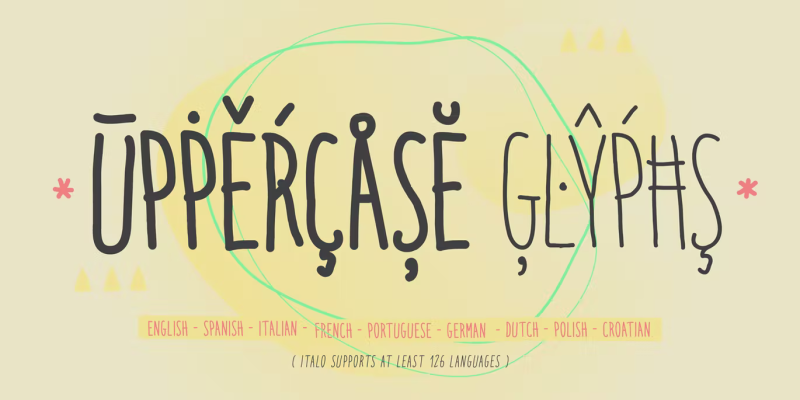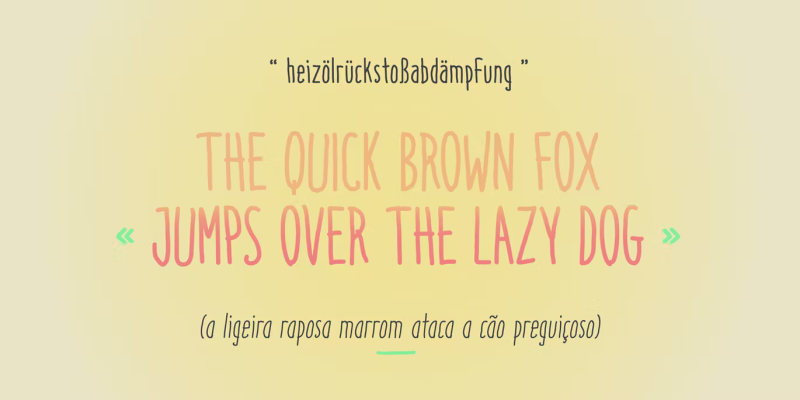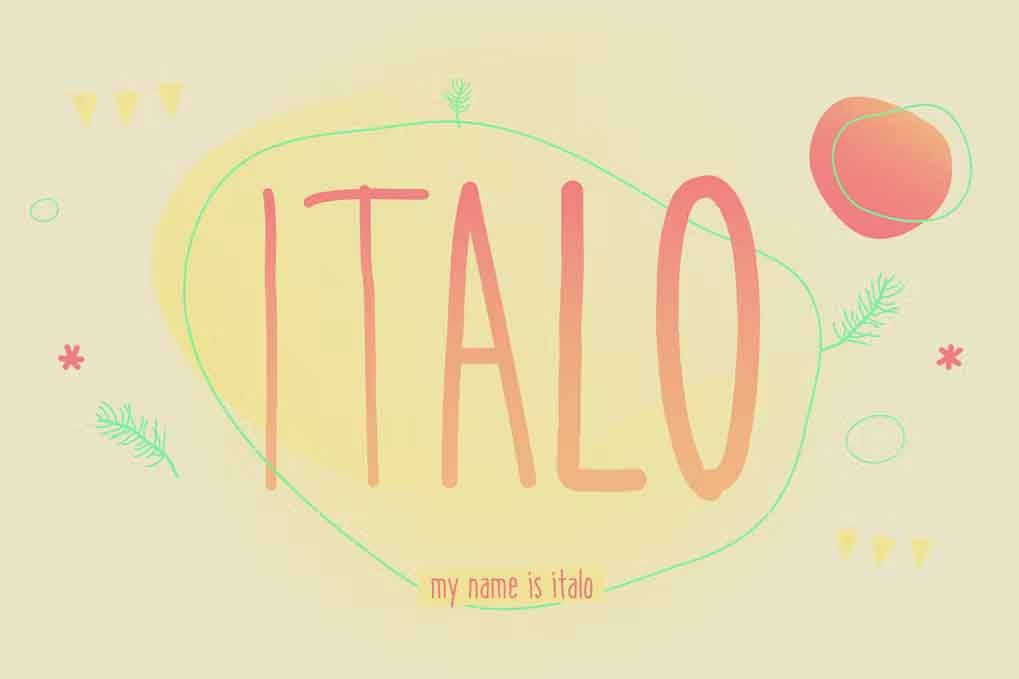
Italo Font
Italo is a decorative, friendly, san-serif handwritten font. This font will provide an informal, cute look to your work! It can be used for small ammount of text, and display usage because of its glyph quality.
Italo offers OpenType features, including ligatures, alternates, smallcaps, scientific superior/inferior figures, oldstyle figures, fractions.
Where Italo Font works best
A short phrase in Italo Font carries warmth that a typeset sans cannot fake; keep the rest of the card plain.
Chalkboard-style headings in Italo Font make a menu feel hand-made. Keep the dish descriptions in a simple face so prices stay readable.
One line of Italo Font over a photo is enough; the script carries the tone and the caption does the work.
What kind of work does Italo Font suit?
It sits in the Script And Handwritten group and reads as decorative, friendly, handwritten, playful. That makes it a candidate wherever those qualities help: headings, packaging, social graphics and brand work. Set it at the size you plan to use before deciding.